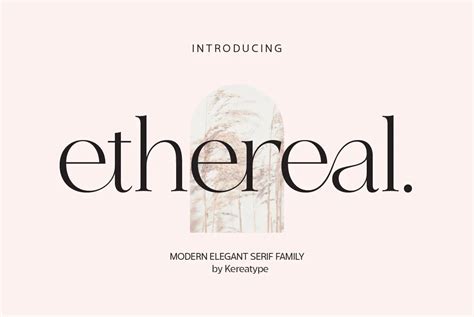
Unlock the Magic of Ethereal Fonts and Feel the Power of Typography!
A Brief to Ethereal Fonts
Ethereal fonts are a type of font that is used to create a unique, dream-like atmosphere. They are often used in logos, titles, and other design pieces that are meant to invoke a sense of mystery or awe. Ethereal fonts are generally characterized by their thin, wispy lines and delicate curves. They often feature serifs, but can also be sans-serif. They can range from simple, single-line fonts to complex, detailed designs.Why Use Ethereal Fonts?
Ethereal fonts can be used to evoke a sense of enchantment and mystery. They give a design a whimsical, almost magical feel. They can also be used to create a sense of lightness and airiness, making them perfect for logos and titles for e-commerce websites. The softness and delicacy of these fonts can also be used to express a sense of gentleness and compassion.How to Choose the Right Ethereal Font
When choosing an ethereal font, it’s important to consider the overall design of your project. You want to pick a font that will fit in with the overall aesthetic you’re trying to create. Consider the size, weight, and style of the font, as well as any special features such as swashes or ligatures. You also want to make sure the font is legible, as ethereal fonts can quickly become too hard to read if they’re too thin or intricate.Unlock the Magic of Ethereal Fonts
Using ethereal fonts can be a great way to add a magical, dreamlike quality to your designs. The delicate, wispy lines and curves create a unique atmosphere, perfect for logos and titles that need to evoke a sense of mystery or enchantment. The right font can turn an ordinary design into something truly magical!Example of Unlock the Magic of Ethereal Fonts
An example of a beautiful ethereal font is ‘Gothic Rose’. This font features delicate, wispy lines and serifs, as well as intricate details in the letters. The font is perfect for creating a dream-like atmosphere, and would be great for a logo or website title.The Power of Typography
Typography is an important part of any design. The right font can give a design an extra layer of meaning and emotion. Ethereal fonts are particularly powerful because of their delicate lines and curves. They have the potential to make a design truly stand out from the crowd.Where to Find Ethereal Fonts
When using ethereal fonts, it’s important to think about the overall design. Make sure the font is legible and fits in with the overall aesthetic you’re trying to create. You also want to make sure the font isn’t too thin or intricate, as this can make it hard to read.My Point of View
I believe that ethereal fonts are a great way to add a unique, dream-like quality to a design. They can be used to evoke a sense of mystery and enchantment, and the right font can make a design truly stand out.If you’re looking for a way to add a magical touch to your designs, ethereal fonts are a great choice. They can be used to evoke a sense of mystery and enchantment, and the right font can make a design truly stand out. So unlock the magic of ethereal fonts and feel the power of typography!Source: CHANNET YOUTUBE sincerely, jehn